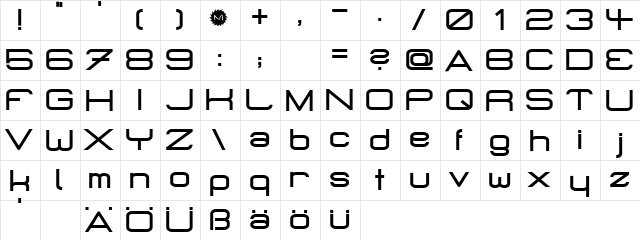
MicroMieps bold
Design Context for MicroMieps Typeface
MicroMieps is a composed and adaptable typeface that performs quietly and consistently across a wide range of design contexts. The heavy weight commands attention and anchors typographic hierarchies.